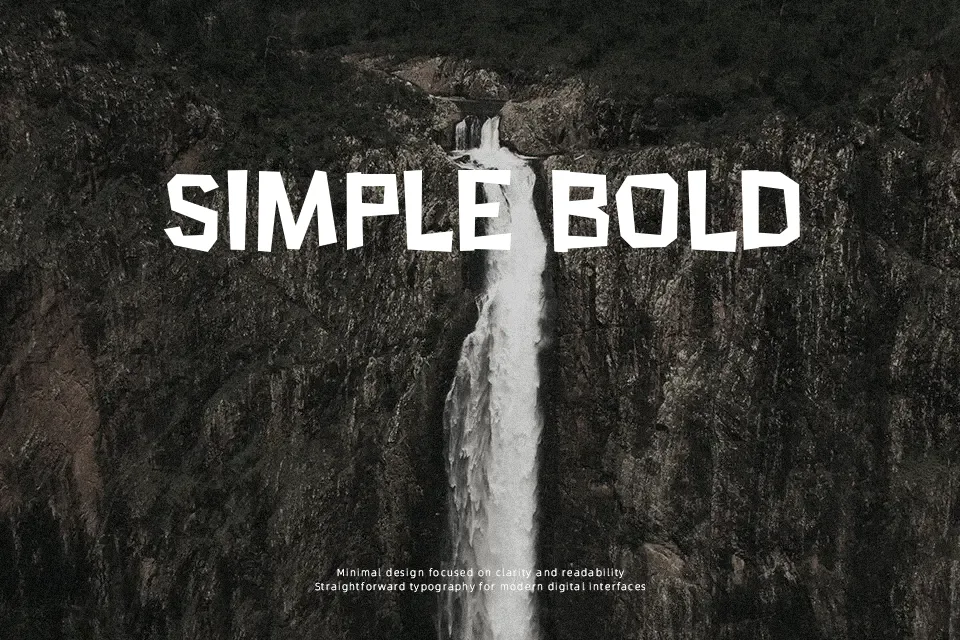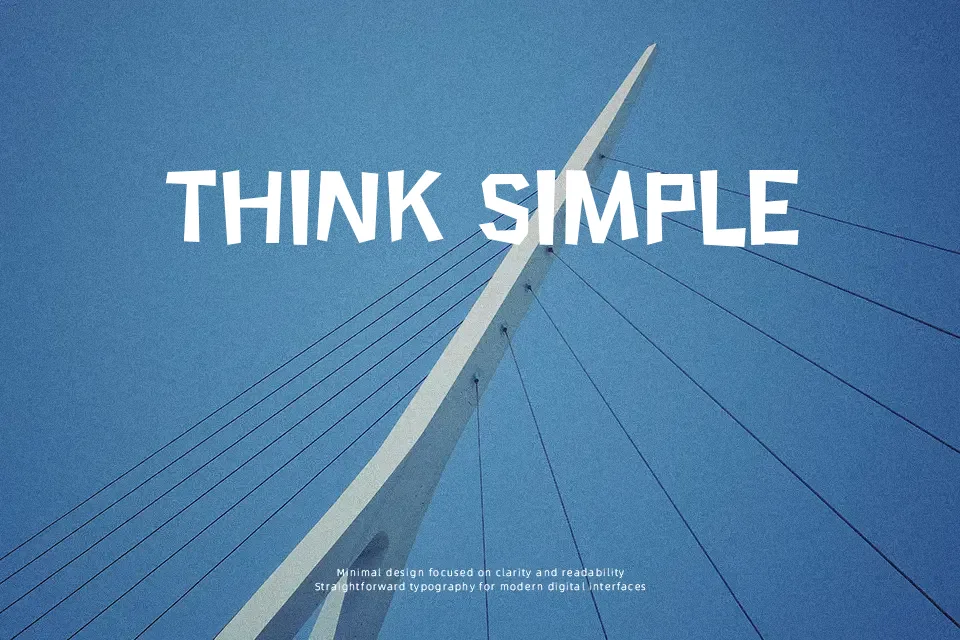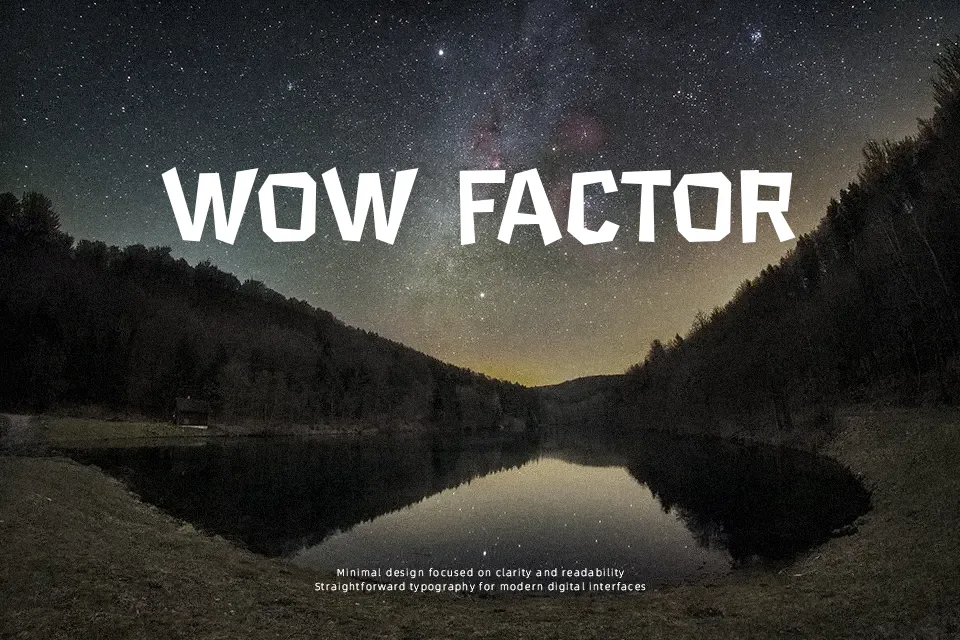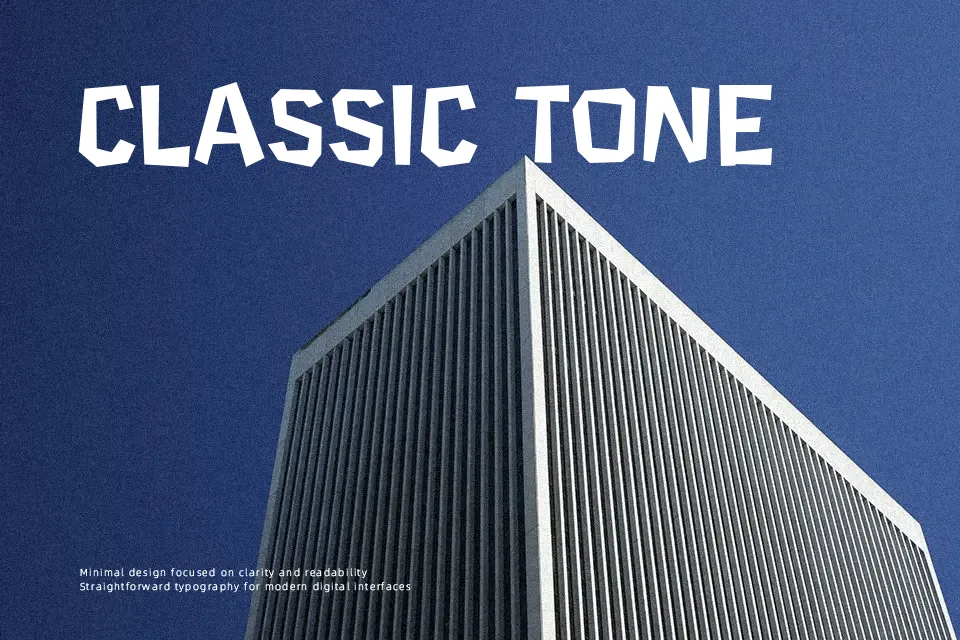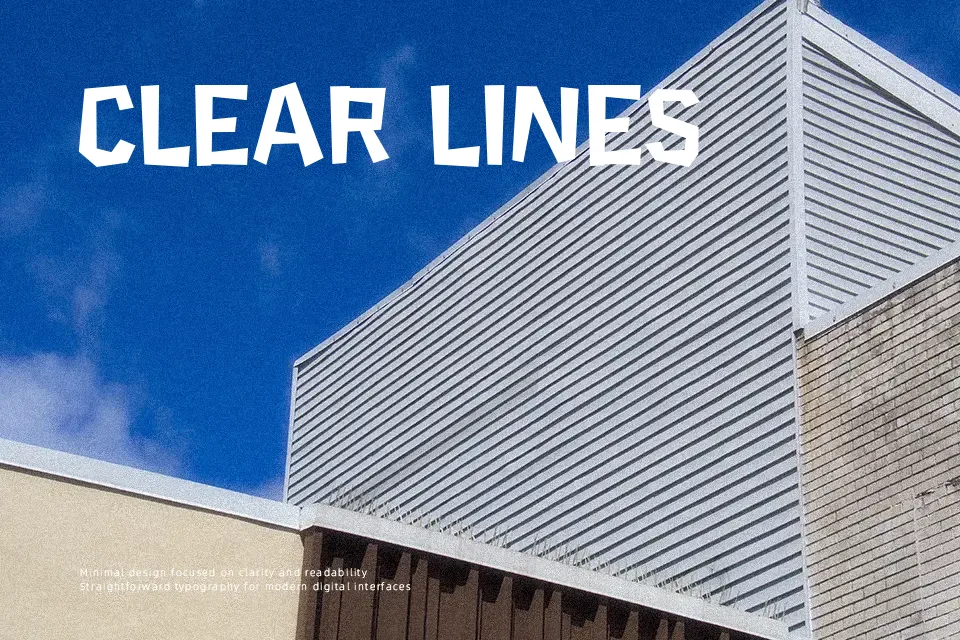
Science Project Font
Science Project Font features an uneven, hand-rendered stroke weight paired with bouncy baselines and open internal counters. Each glyph displays irregular edge contours and relaxed character spacing, establishing an animated visual rhythm across headline compositions. The loose proportions maintain immediate legibility in large display formats, making the typeface well suited for children’s book titles, science fair posters, creative packaging, and educational worksheets. However, the irregular letterforms become difficult to distinguish at small sizes, and dense paragraphs suffer from reduced reading comfort. The generous spacing helps maintain clarity in larger headlines, but designers should avoid continuous body text.
Best For: school science fair posters, children’s book covers, comic strip titles, youth workshop signage
Not Ideal For: long body text, corporate annual reports, dense spreadsheets, legal contracts
Perfect for branding, headline, and kids, with a creative and cartoon style.